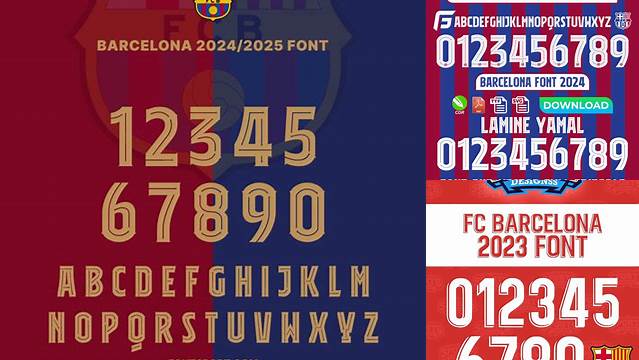
Are you a design enthusiast, a football fanatic, or simply someone looking to refresh your digital presence? Well, you've landed in the right spot! In this article, we're diving deep into the world of the Barcelona Font for 2026-24. Yep, you heard it right – we're talking about that sleek, stylish typeface that might just be the secret sauce to making your projects pop. And guess what? We're also going to show you how to snag it for free. So, stick around, guys, because this is going to be epic!
What is the Barcelona Font 2026-24?
Let's kick things off by understanding what the Barcelona Font 2026-24 actually is. For those who are already familiar with the world of typography, you know how much a font can impact the overall look and feel of a design. It’s not just about the letters; it’s about the vibe, the message, and the emotional connection it creates. The Barcelona Font, in particular, is a modern, sophisticated typeface that embodies the spirit of the vibrant city it's named after. Think of the architectural marvels of Antoni GaudĂ, the bustling streets of Las Ramblas, and the electric atmosphere of Camp Nou – this font encapsulates all that energy.
Designed with the future in mind, the 2026-24 version of this font family is tailored for a wide range of applications. Whether you're working on a sporting event poster, a website redesign, or even a personal project, this font offers a clean, contemporary look. It's versatile enough to be used in headlines, body text, and even logos. Imagine the crisp, clear lines on a poster announcing the next big match, or the elegant touch it adds to your website’s navigation menu. The possibilities are endless!
Now, why is it called the 2026-24 font? Well, it’s quite common for fonts to be associated with specific years, often to mark a design refresh or a special edition. This particular font might be tied to upcoming events or initiatives planned for those years, making it a symbol of the future. It's like having a piece of tomorrow’s design language in your hands today. The font’s aesthetic is all about forward motion – clean lines, balanced letterforms, and a sense of modernity that makes it a standout choice for any design endeavor. Its distinctive character ensures that your message isn't just read, but felt. Think about the last time you saw a font that really grabbed your attention. It probably had a unique quality, a certain flair that made it memorable. That’s exactly what the Barcelona Font 2026-24 aims to deliver.
Moreover, this font is not just about aesthetics; it’s also about functionality. The designers have paid meticulous attention to the readability and legibility of each character. This means that whether your audience is viewing it on a large screen or a small mobile device, the text remains clear and easy to read. This is especially crucial in today’s digital age, where content is consumed across a myriad of devices. You need a font that adapts seamlessly, ensuring that your message is consistently delivered, no matter the platform. The Barcelona Font 2026-24 achieves this balance beautifully, blending style with practicality.
Why is the Barcelona Font so Popular?
So, what's the buzz around the Barcelona Font? Why are designers and enthusiasts scrambling to get their hands on it? Well, there are several compelling reasons behind its popularity. First and foremost, it’s the font's versatility. We've touched on this already, but it’s worth emphasizing. This font isn’t a one-trick pony; it's a design chameleon that can adapt to a multitude of projects. Need a strong, authoritative typeface for a corporate report? Check. Want a sleek, modern look for a fashion blog? Double-check. How about an engaging, playful font for a children’s book? You guessed it – triple-check. Its adaptability makes it a go-to choice for designers working across different industries and niches.
Another key factor is its modern aesthetic. In a world where trends come and go faster than you can say “Helvetica,” the Barcelona Font manages to stay fresh and relevant. Its clean lines and contemporary feel resonate with audiences who appreciate minimalist design. It’s a font that looks like it belongs in the future, making it perfect for brands and projects that want to project a forward-thinking image. Think about some of the most successful brands out there – they often opt for fonts that are simple yet impactful, conveying a sense of sophistication and innovation. The Barcelona Font fits this bill perfectly.
Furthermore, the font's association with the city of Barcelona adds an extra layer of appeal. Barcelona is a city synonymous with creativity, culture, and cutting-edge design. By adopting this font, designers can tap into that rich heritage and infuse their work with a touch of Catalan flair. It’s like adding a bit of magic to your project, connecting it to a place that’s celebrated for its artistic spirit. Imagine using this font for a travel blog or a tourism campaign – it instantly evokes images of sunny beaches, architectural wonders, and vibrant nightlife. The Barcelona Font isn’t just a typeface; it’s a symbol of a lifestyle.
Moreover, the ease of use and accessibility of the font also contribute to its popularity. Designers often praise fonts that are not only beautiful but also user-friendly. The Barcelona Font is designed with clarity in mind, ensuring that it renders well across different platforms and devices. This means that you can use it with confidence, knowing that your message will be conveyed effectively, regardless of the medium. Additionally, the fact that it’s available for free download makes it even more attractive to designers who are working on a budget. It’s a high-quality typeface that doesn’t break the bank, making it a win-win for everyone involved. Free resources like this empower creatives to produce stunning work without financial constraints, fostering innovation and accessibility in the design community.